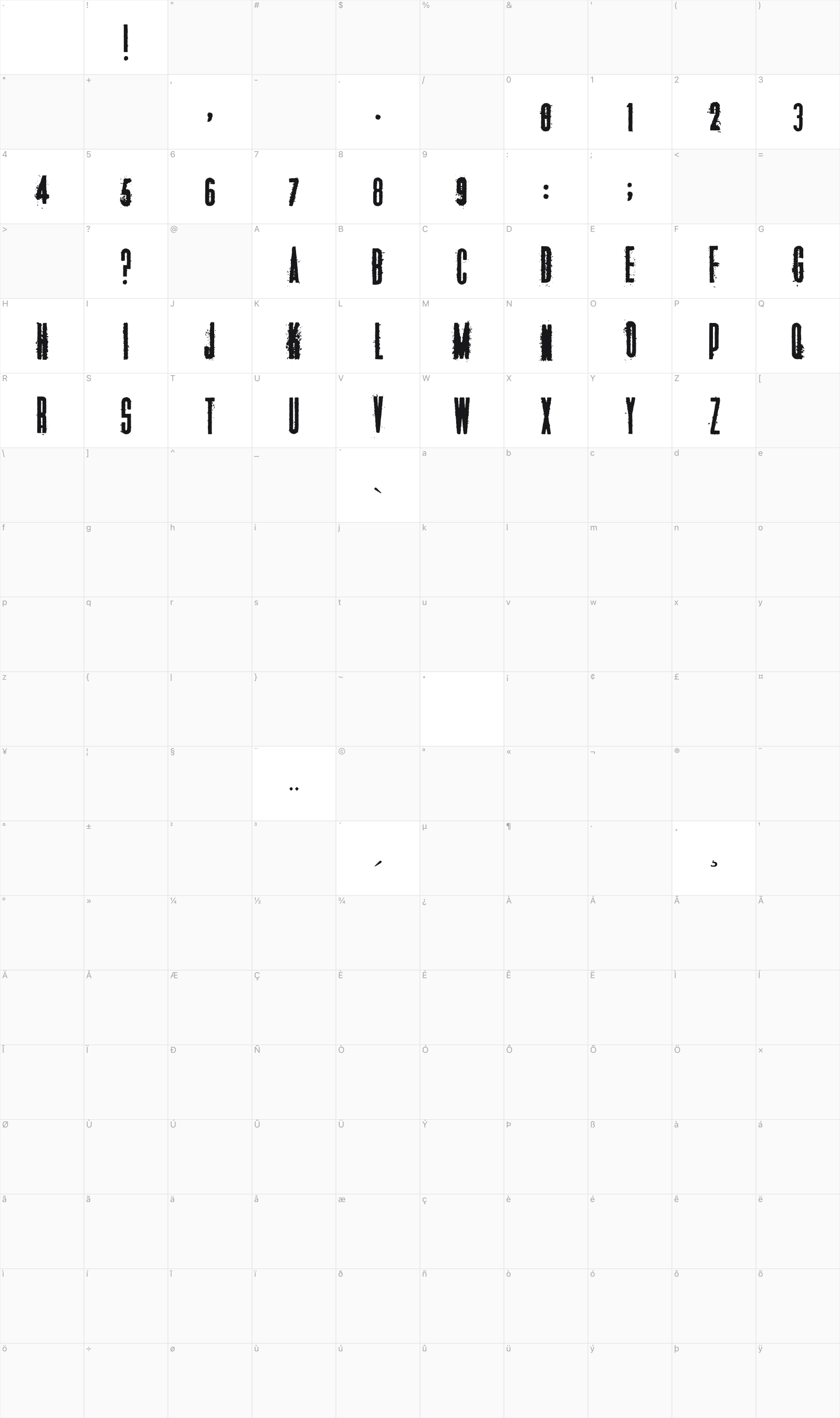
Manifesto
Manifesto is a bold, condensed uppercase face from imagex with a heavy layer of grunge texture baked into every letterform. The rough, worn edges make it look like it was printed on cheap paper and left out in the rain, giving it an authentic distressed quality that feels earned rather than applied. Built for posters, protest art, and headlines where you want something that looks like it has a story behind it.